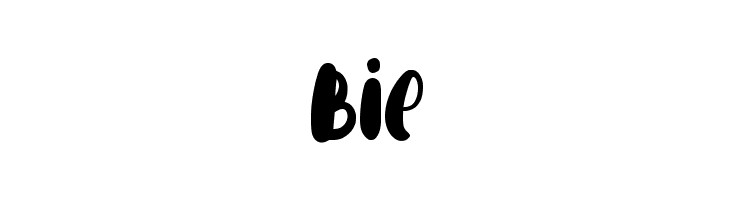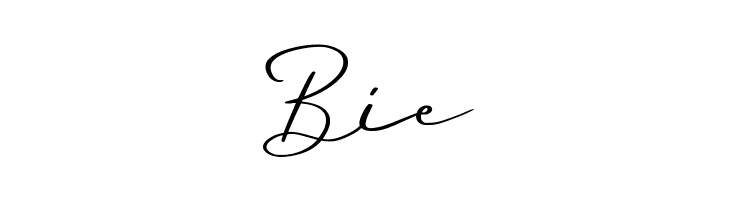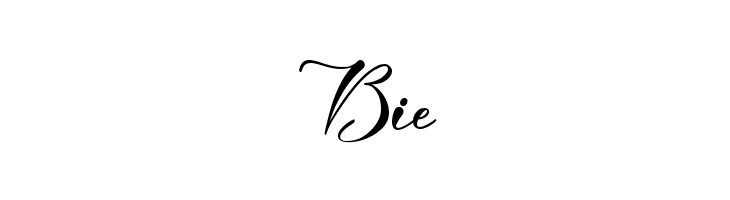
• Happy Holiday
A bold, playful handwritten font with thick, rounded strokes and a lively appearance.
• HARLEY QUEEN
A bold, brush-stroke font with a rugged, hand-drawn appearance.
• HARLEY QUEEN
• Harleyquin
A flowing, cursive script font with elegant, interconnected characters.
• Harmaa Perkele
A bold, ornate blackletter font with a gothic, medieval style.
• Harriet - personal use
An elegant and flowing script font with graceful curves and sophisticated swashes.
• Hasley
An elegant cursive font with flowing loops and artistic swirls.
• Hasley Italic
An elegant, cursive script font with flowing, italicized letters.
• Hassey
An elegant, flowing script font with smooth, continuous strokes.
• Hatami
A playful and elegant script font with fluid, connected letterforms.